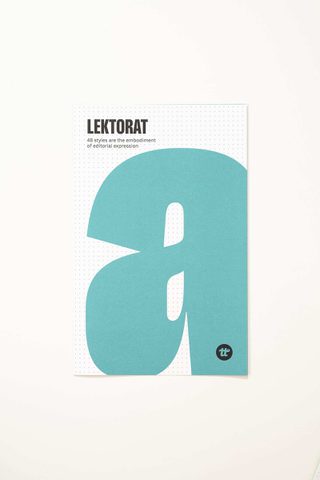
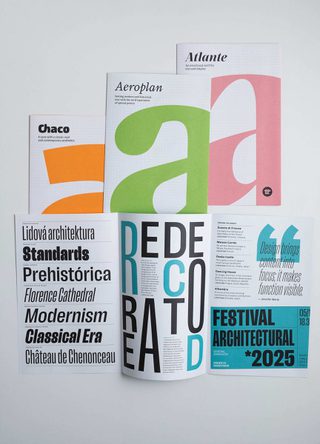
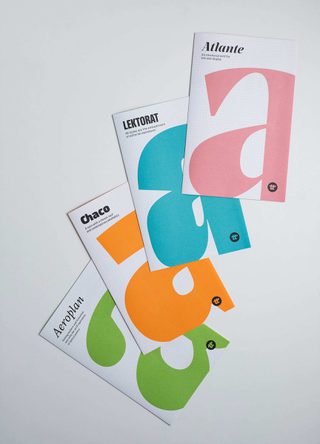
Lektorat specimen
Florian Fecher’s Lektorat font family is one for the books, and for the screens, and for the magazines. With its six concentrated text styles and three display widths equal 42 total styles, Lektorat is the sans family capable of setting a full range of editorial publishing. To mark its success, our talented graphic designer Felicia Priscillya designed this specimen, under the supervision of Elena Veguillas, now available in our store.